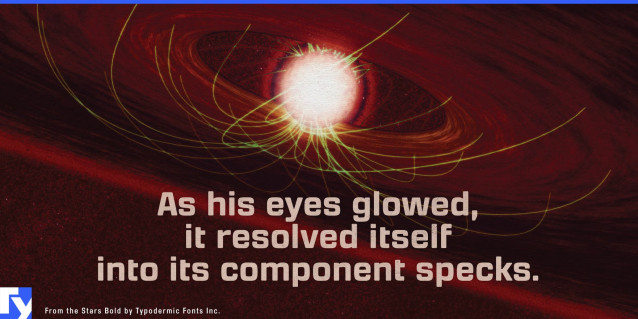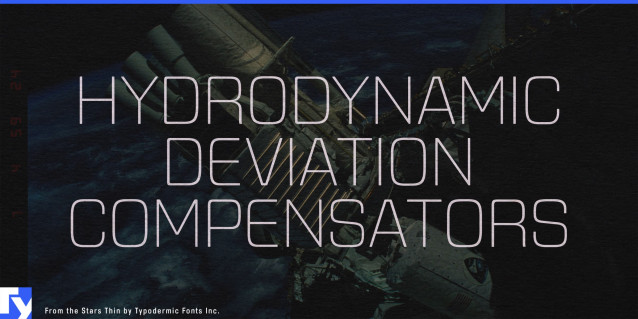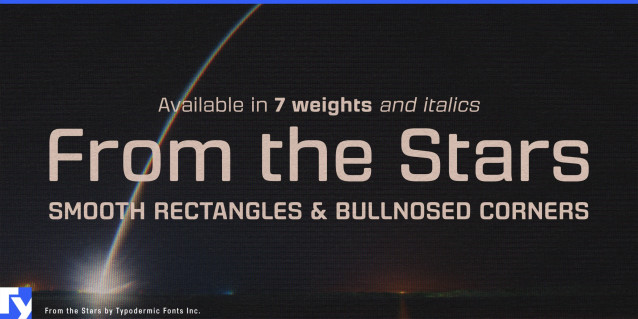
From the Stars Font
From the Stars is a modern square sans-serif typeface refined for today’s design demands. Its rectilinear letterforms draw from the Eurostile tradition but soften the geometry with rounded, bullnosed corners for a warmer, more approachable presence. Closed apertures and compact proportions give it a precise, engineered feel, while the subtle curvature in every stroke tempers the rigidity often found in techno-inspired faces. The result is a type family that communicates technical sophistication without sacrificing readability or personality.
Available in seven weights with matching italics, From the Stars offers a complete range for building cohesive visual systems. The lightest weights bring a sleek, understated elegance to layouts, while bold and black cuts deliver confident, high-impact headlines. Intermediate weights strike a balance that works effortlessly across print and digital environments, from small-scale labels to architectural-scale signage.
Its versatility extends across industries: ideal for technology branding, product interfaces, corporate communications, packaging for electronics or performance gear, and wayfinding systems. The refined geometry ensures consistency at all sizes, while the softened edges create a friendly, contemporary tone. With extensive Latin-based language support and finely tuned spacing, From the Stars adapts seamlessly to global projects, carrying its distinctive blend of precision and approachability into any application.